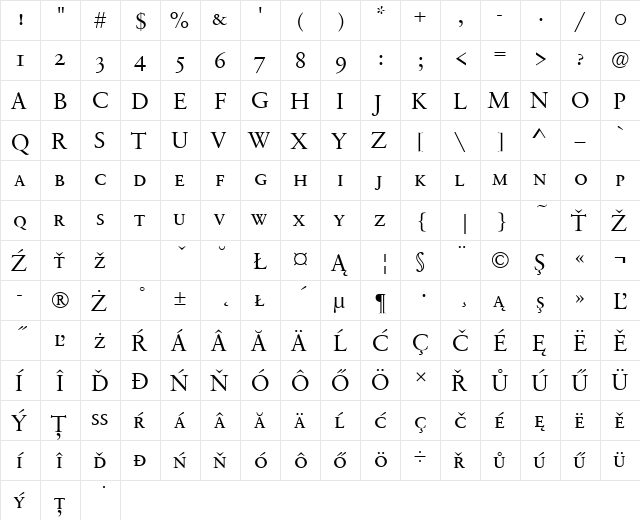
SabiusSCTEEReg Regular Font Preview
SabiusSCTEEReg Regular
SabiusSCTEEReg Regular Font Details
Design Context for SabiusSCTEEReg Typeface
SabiusSCTEEReg offers clean, dependable letterforms without strong stylistic allegiance, making it a practical choice for designers who need flexibility.